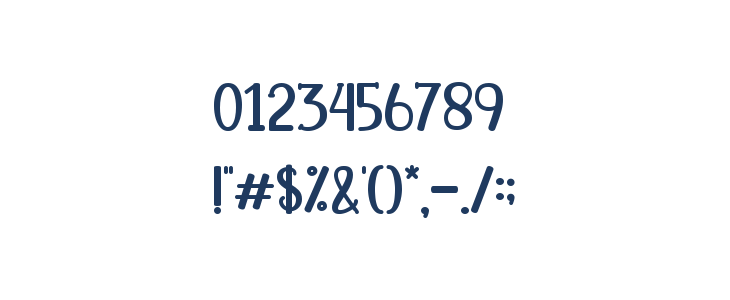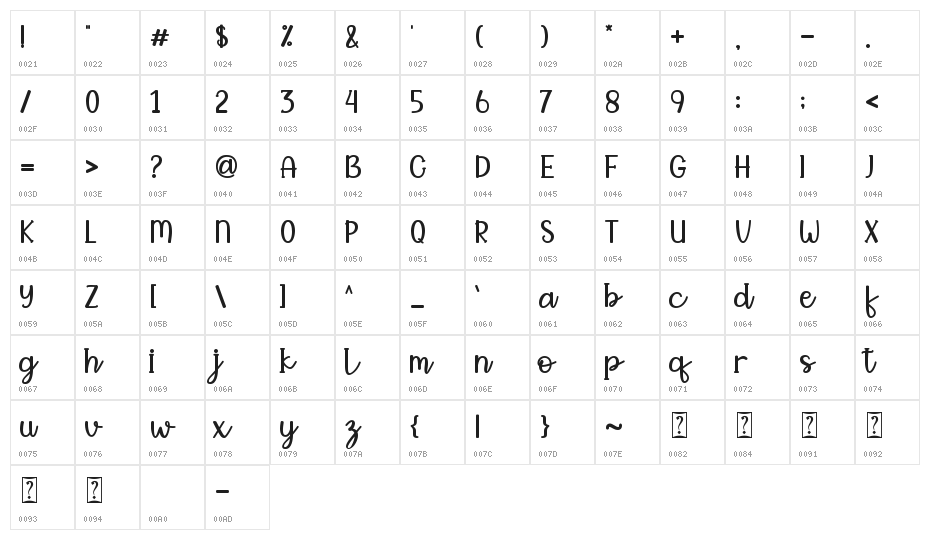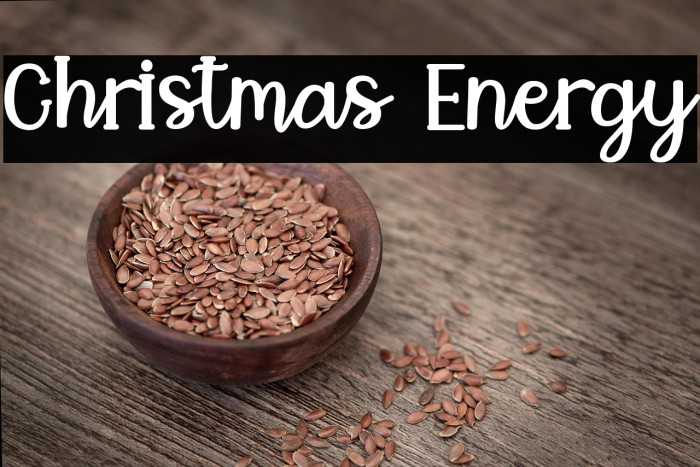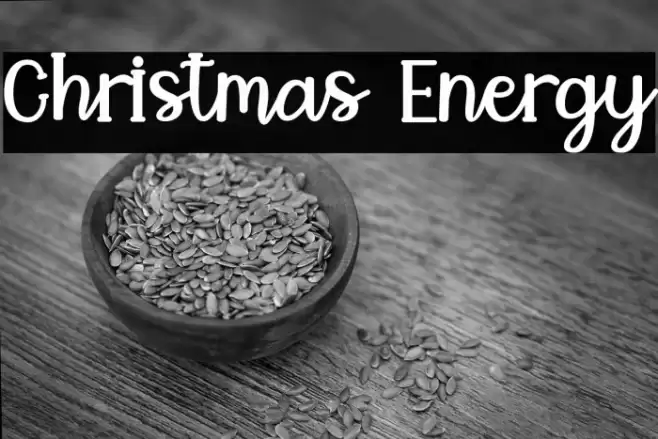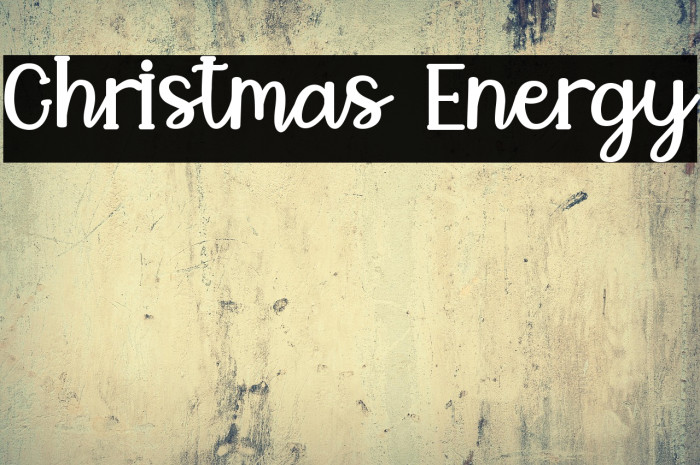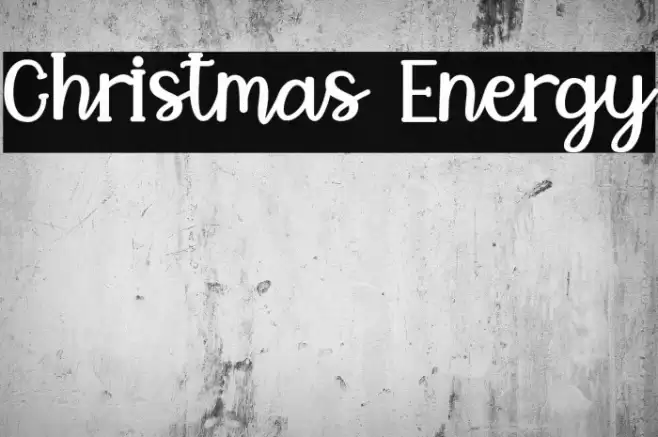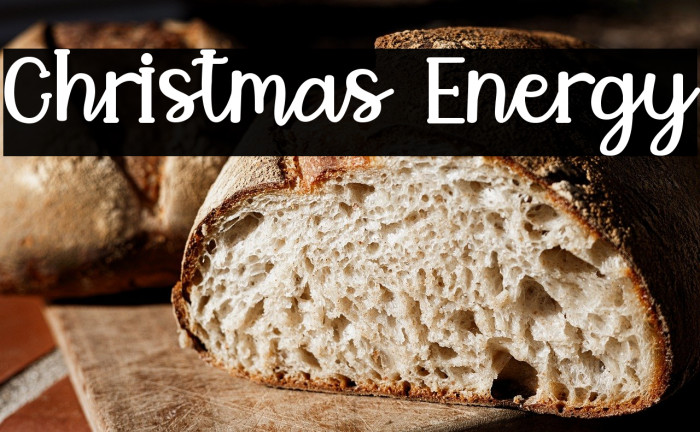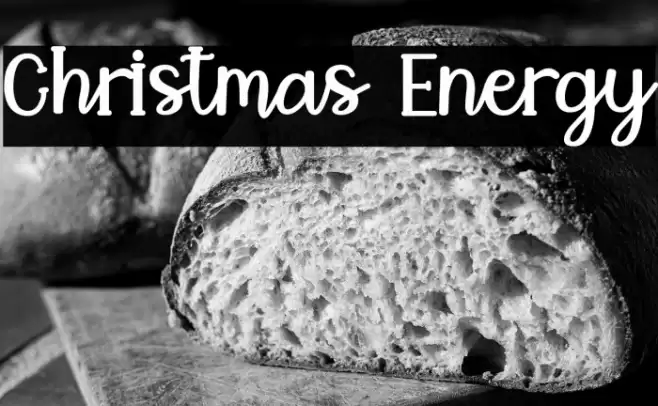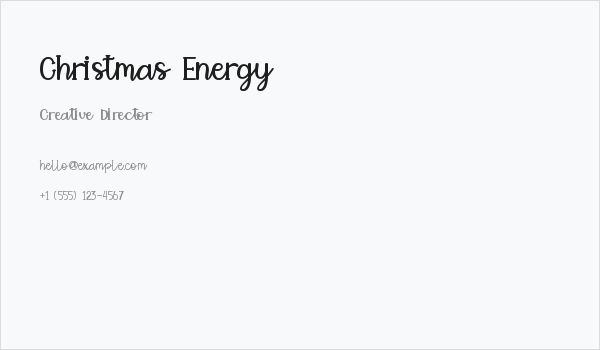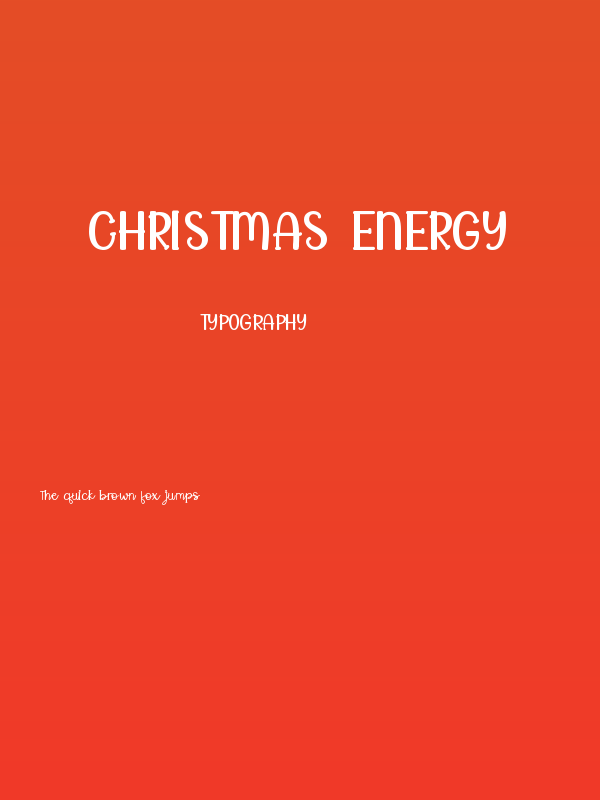
Christmas Energy Font
Christmas Energy Description
This font features a playful and energetic style, combining elements of both script and sans-serif characteristics. The uppercase letters are bold and rounded, with a slight curl at the ends, giving them a whimsical appearance. The lowercase letters are more fluid and connected, resembling a casual handwritten script. Numbers and special characters maintain the playful theme, with consistent stroke weight and rounded edges. This font exudes a festive and lively vibe, perfect for capturing attention and conveying a sense of joy and celebration.
| Proposed Projects | Ideal for holiday cards, party invitations, festive banners, and playful branding projects. |